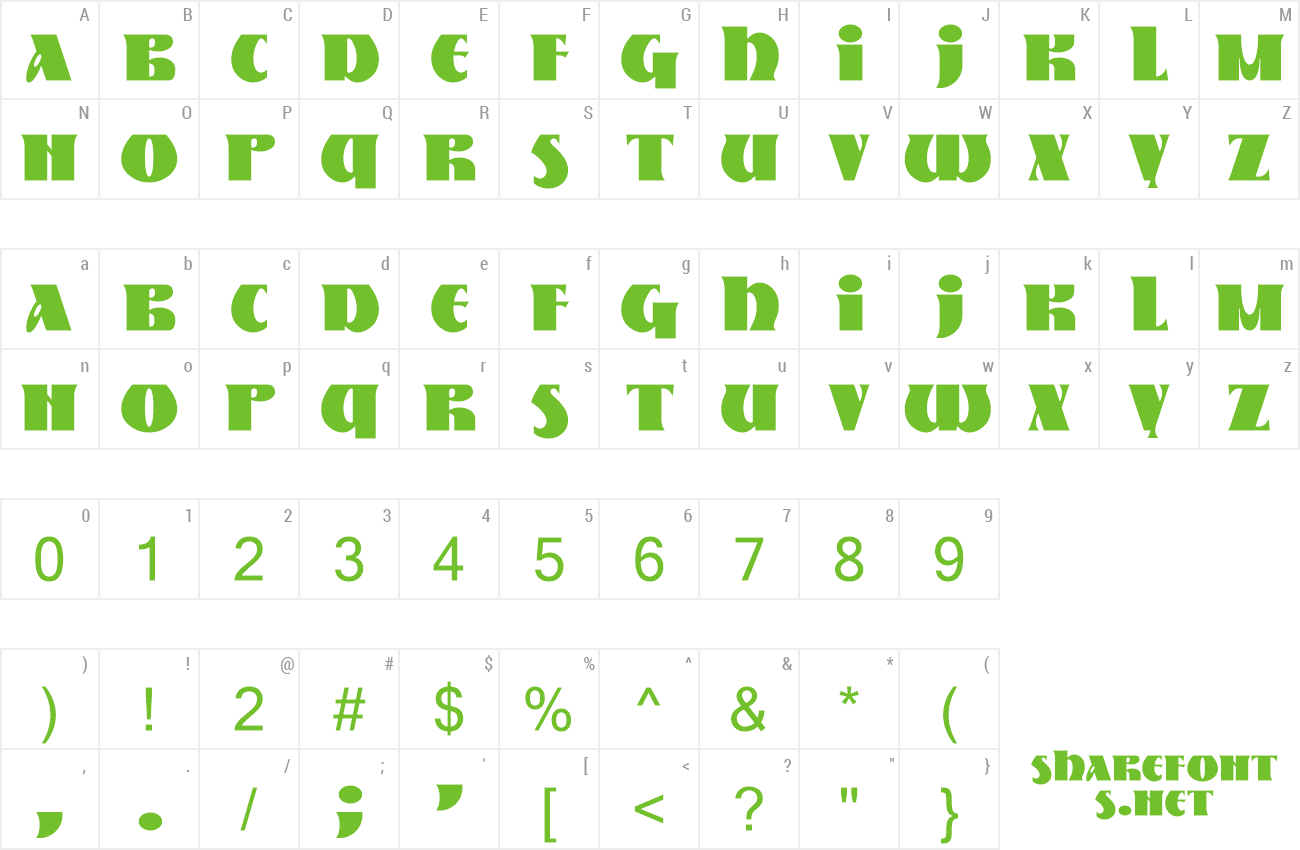
Nestor font
Nestor Bold Regular truetype font
Nestor Font Free Download FreeFontDL
Web download the nestor font for free for your project at fontsforyou. On the font page, you will find examples of. View font details, character map, custom preview, downloads, file contents. It’s perfect for headlines, advertising,. Web download the top 20 free nestor font details.
Nestor Font download free
On the font page, you will find examples of. Web download the nestor font for free for your project at fontsforyou. Web download the top 20 free nestor font details. It’s perfect for headlines, advertising,. View font details, character map, custom preview, downloads, file contents.